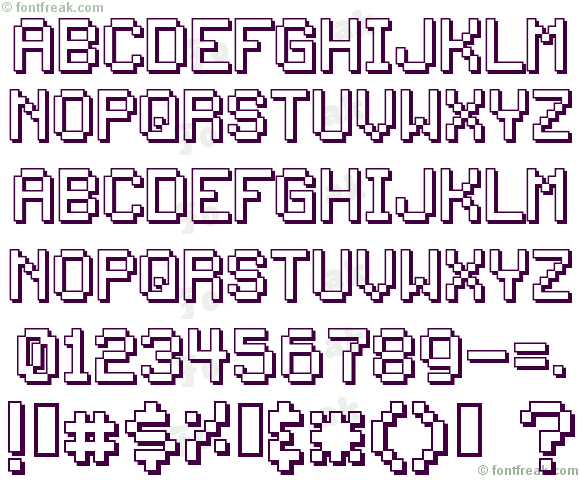
Back to 1982
The "Back to 1982" font by Pizzadude is a striking display typeface that captures the essence of retro gaming aesthetics. This freeware font features a pixelated design reminiscent of classic arcade graphics, making it a perfect choice for projects that seek to evoke nostalgia. The font exhibits bold stroke weights with minimal contrast, contributing to its robust, blocky appearance. The characters are spaced adequately, ensuring legibility while maintaining an authentic vintage feel. The decorative elements, such as the jagged edges and pixelated texture, further enhance its retro charm.
Ideal use cases for the "Back to 1982" font include video game-themed posters, retro merchandise branding, and promotional materials for gaming events. It can also be effectively utilized in website headers or social media graphics aimed at a nostalgic audience. Graphic designers looking to create eye-catching visuals for retro-themed parties or events will find this font particularly appealing. Small business owners in the gaming or tech industry can use it for branding that resonates with a retro vibe, while content creators can incorporate it into their multimedia projects to attract viewers with a penchant for nostalgia.
What sets the "Back to 1982" font apart is its ability to transport users back to a simpler time, characterized by pixel art and classic gaming experiences. This font serves not only as a visual tool but also as a cultural reference that speaks to a shared history. For those interested in adding a touch of retro flair to their designs, the "Back to 1982 font free download" offers an accessible option that is sure to inspire creativity and capture attention.